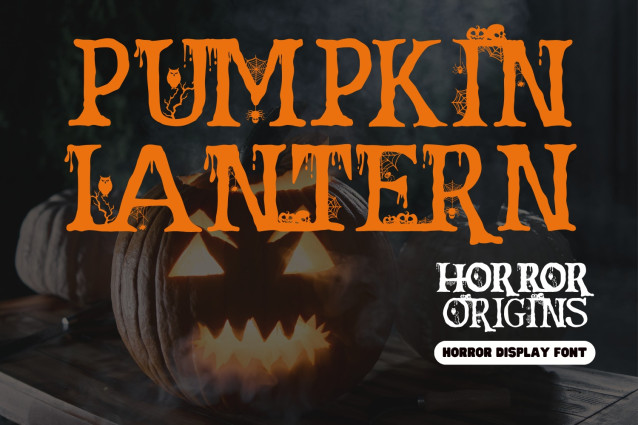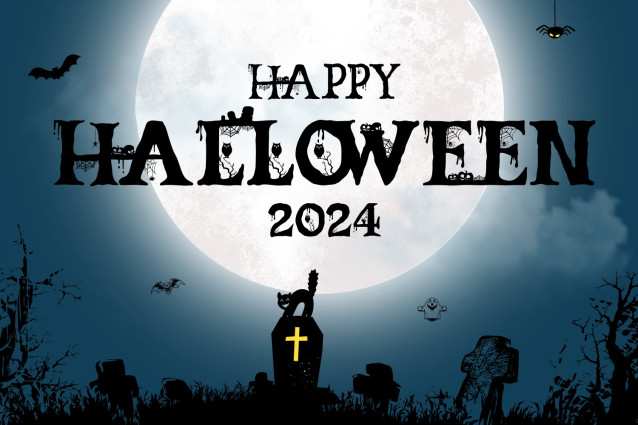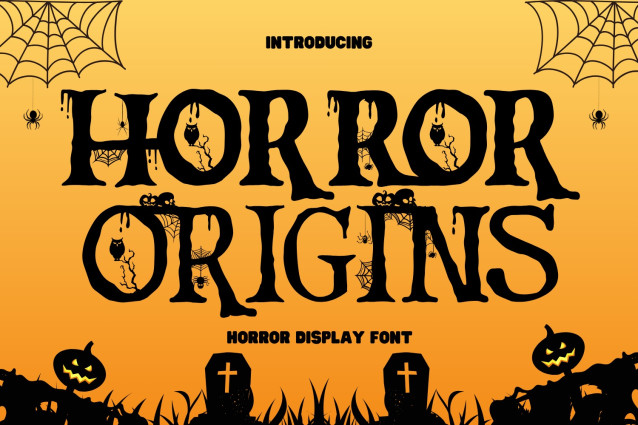
Horror Origins Font
Horror Origins Font – a cute Halloween font with ghosts, spiders and cobwebs. It’s all caps serif font with spooky and scary vibes. This is special font for Halloween theme. This font has some ligatures to give more options in designing. Perfect for Halloween designs, logos, branding, packaging, apparel, cards, posters, quotes, social media posts, stickers and much more!
Horror Origins was built with OpenType features and includes 100 ligatures, alternate, numbers, punctuation, and it also supports other languages.